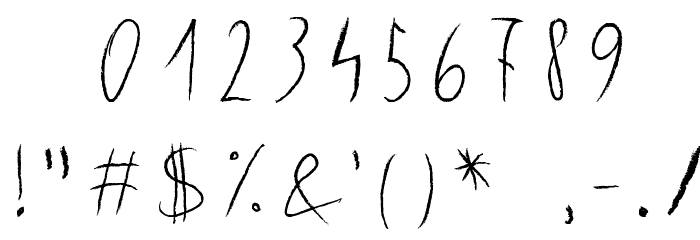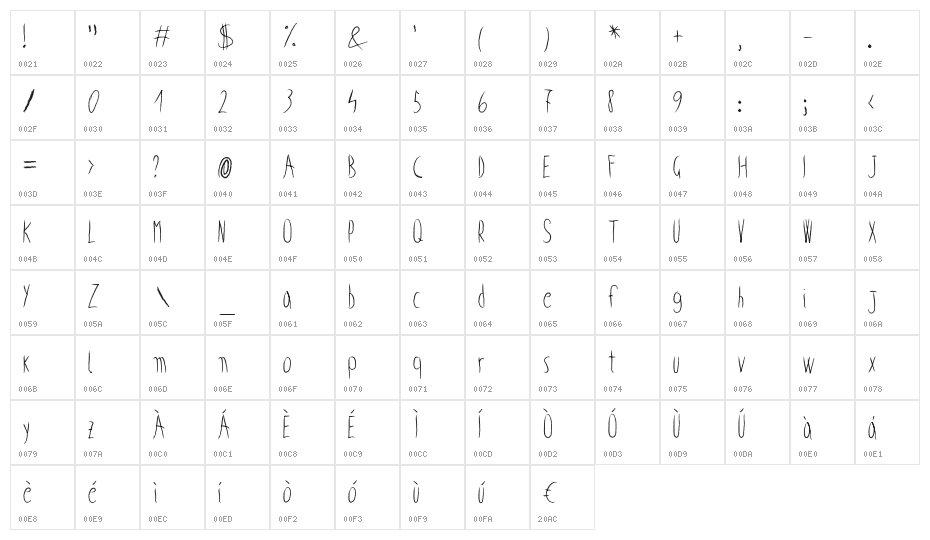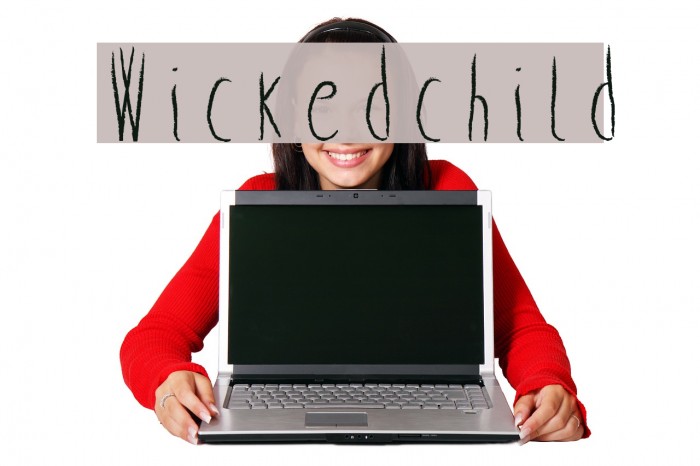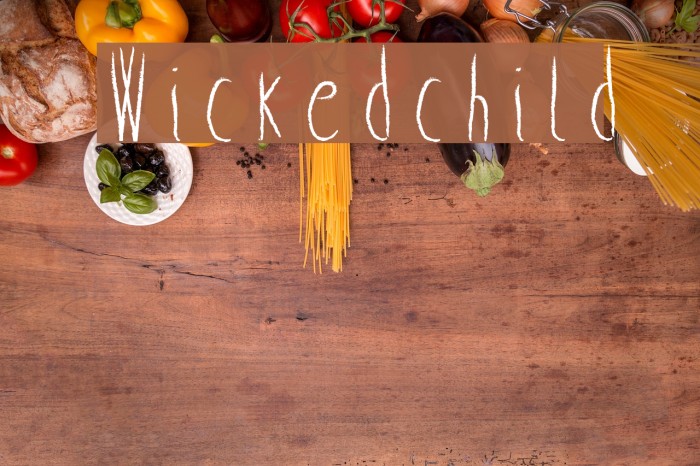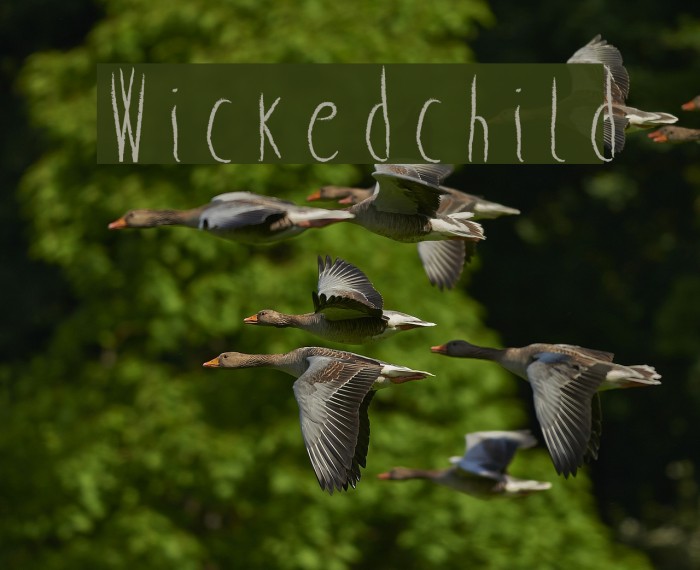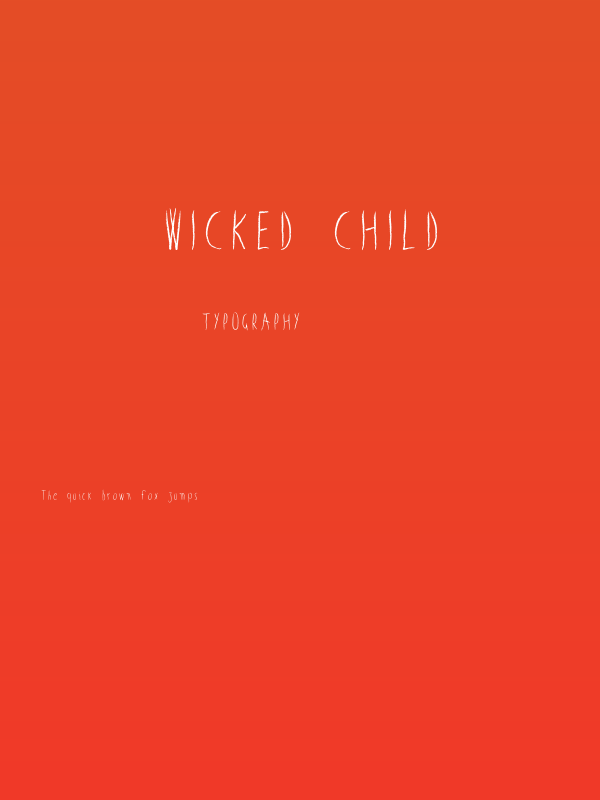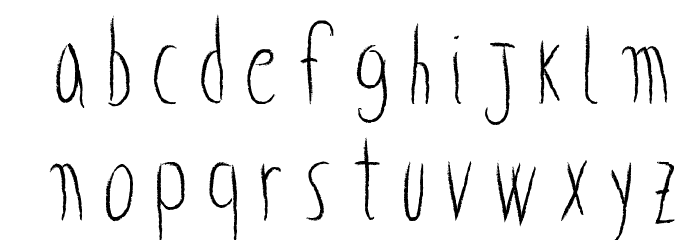
Wicked child Font
Wicked child Description
This font features a unique, hand-drawn style with elongated, slightly irregular strokes that give it a whimsical and slightly eerie appearance. The characters are tall and narrow, with a playful yet edgy feel. The uppercase letters maintain a consistent height, while the lowercase letters exhibit a more varied baseline, adding to the font's quirky charm. The numbers and special characters follow the same stylistic approach, ensuring a cohesive look across all glyphs. The overall texture of the font is rough, with a sketch-like quality that enhances its handmade aesthetic.
| Proposed Projects | Ideal for Halloween-themed designs, children's book covers, quirky branding, or any project requiring a playful yet slightly eerie touch. |